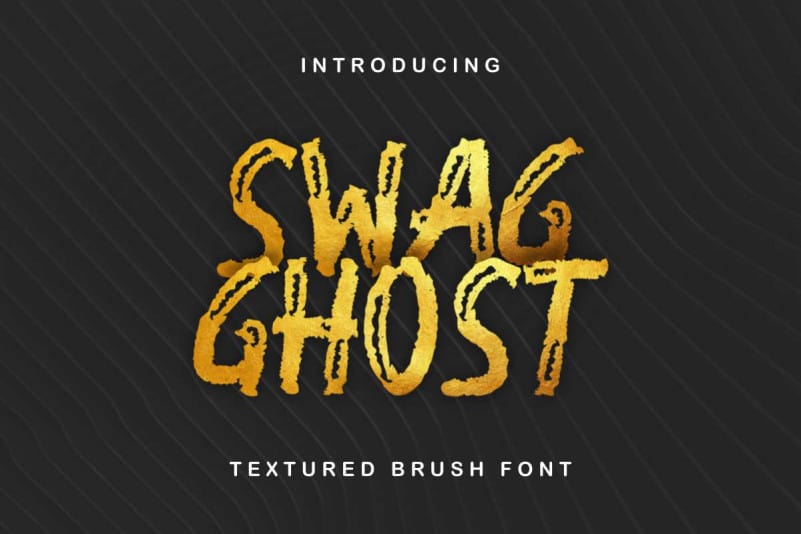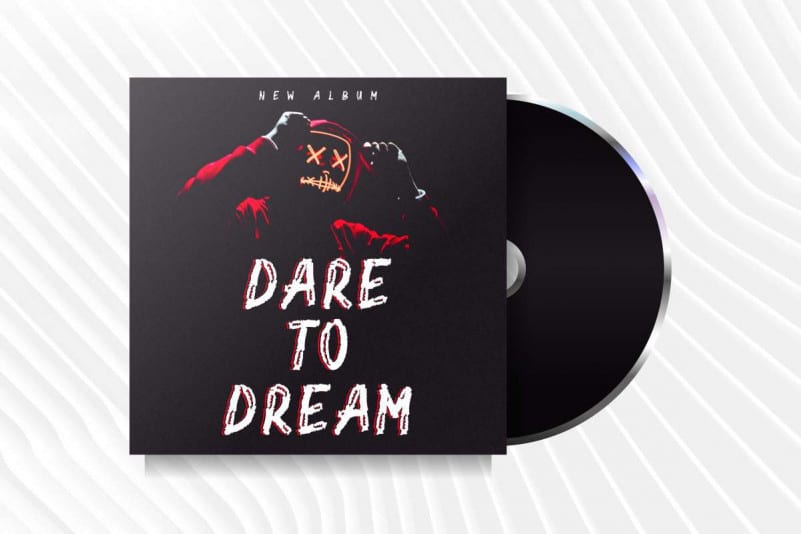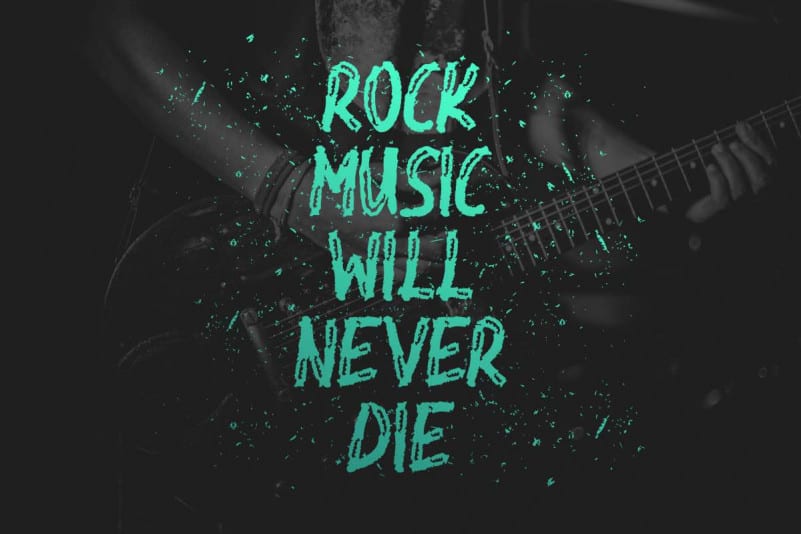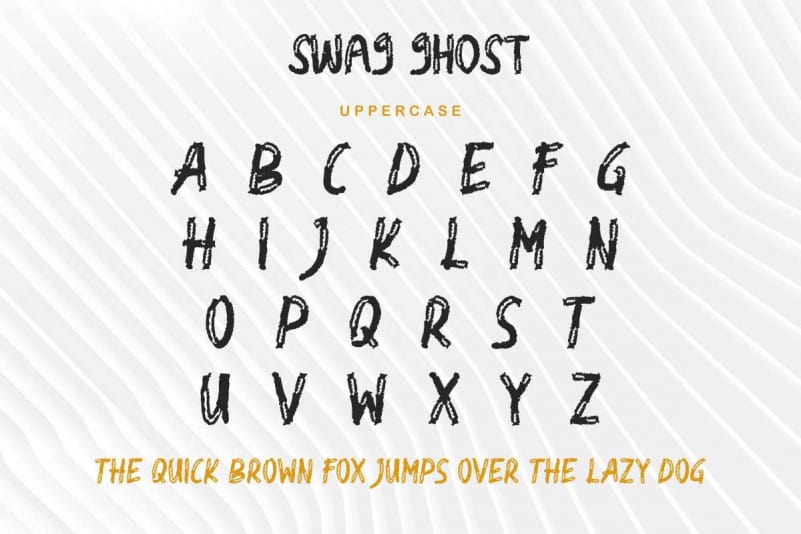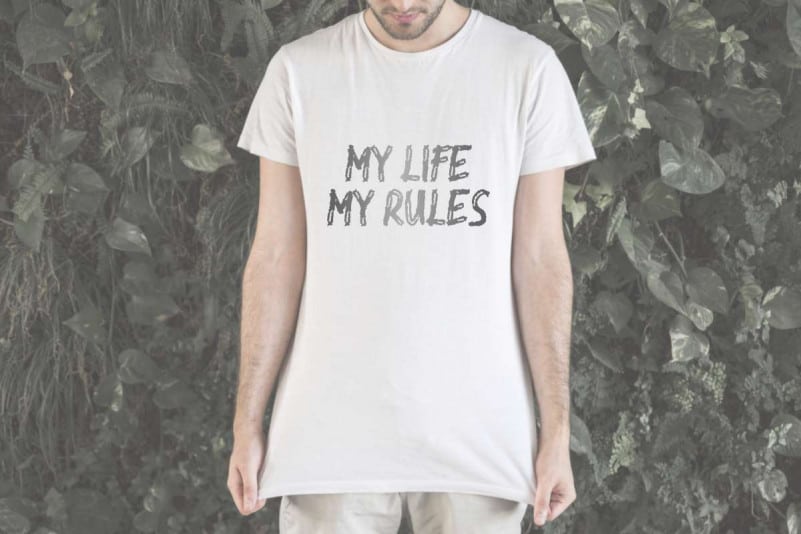
Swag Ghost Font
Introducing our latest font : Swag Ghost Font. This is a brush display font, handcrafted on our Studio in Bandung and Garut, Indonesia. The typeface artists/designers of this beautiful font is Ali and Sarah.
Swag Ghost Font is an unique textured brush decorative typeface with brush style. This font has an exclusive characters set, perfectly managed with well spaced and kerning. The theme style of this font will vintage, clumsy, street paint and classic brush rough style. This font is like no other.
Swag Ghost Font will be great(with extended license) for any projects including : branding, logo, stationery, business card, signage, flyer, brochure etc. Almost all industries will be match for this typeface: events, cafe, motor, biker, street looks.